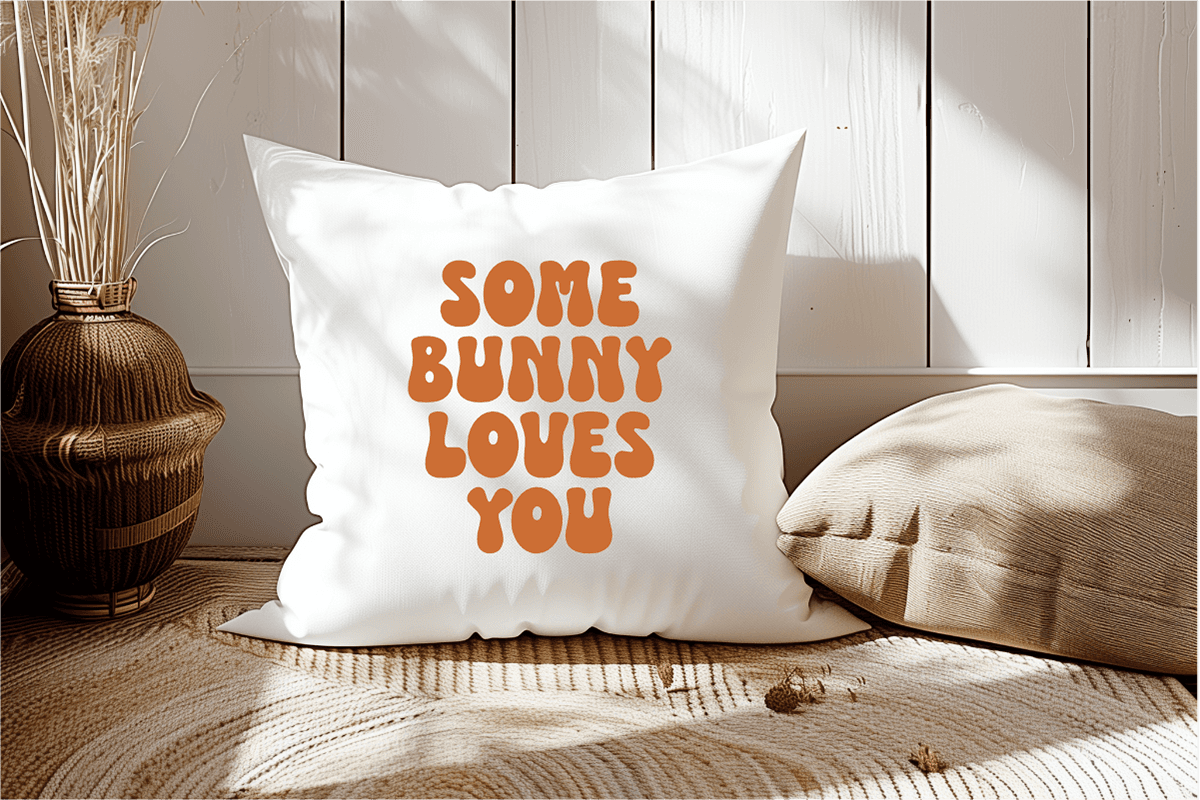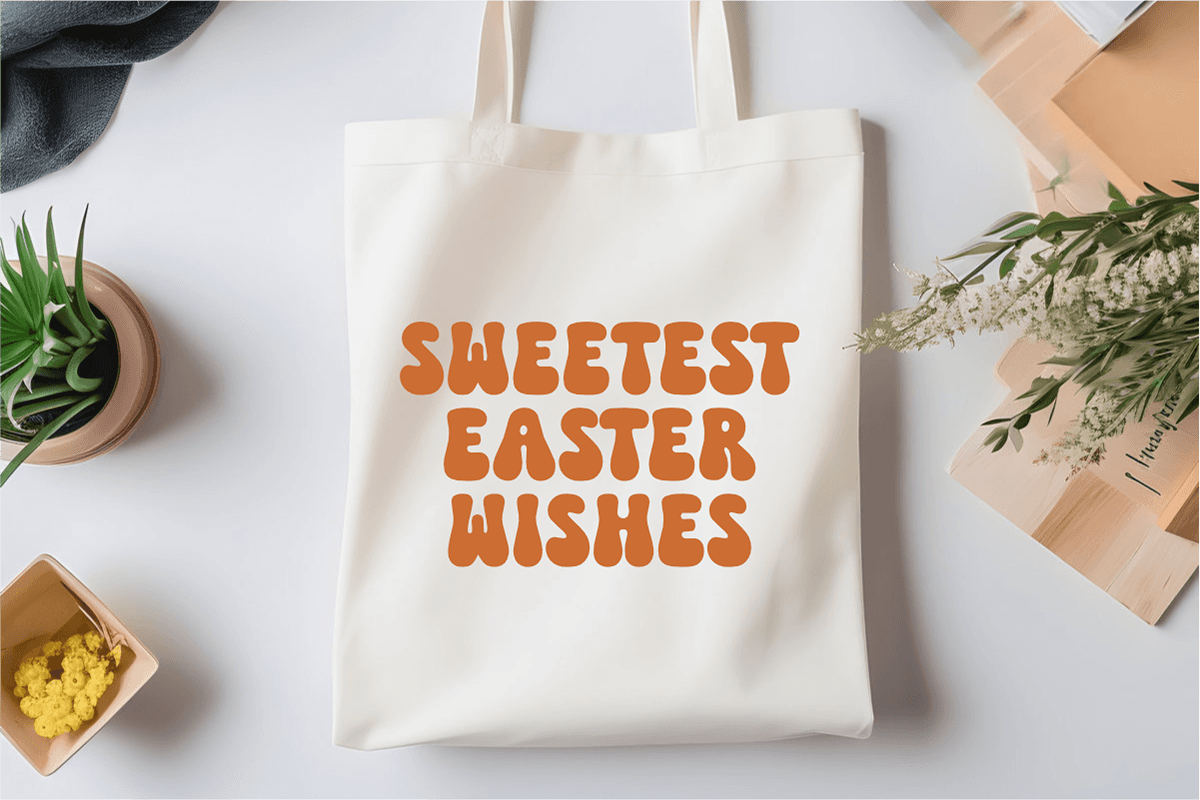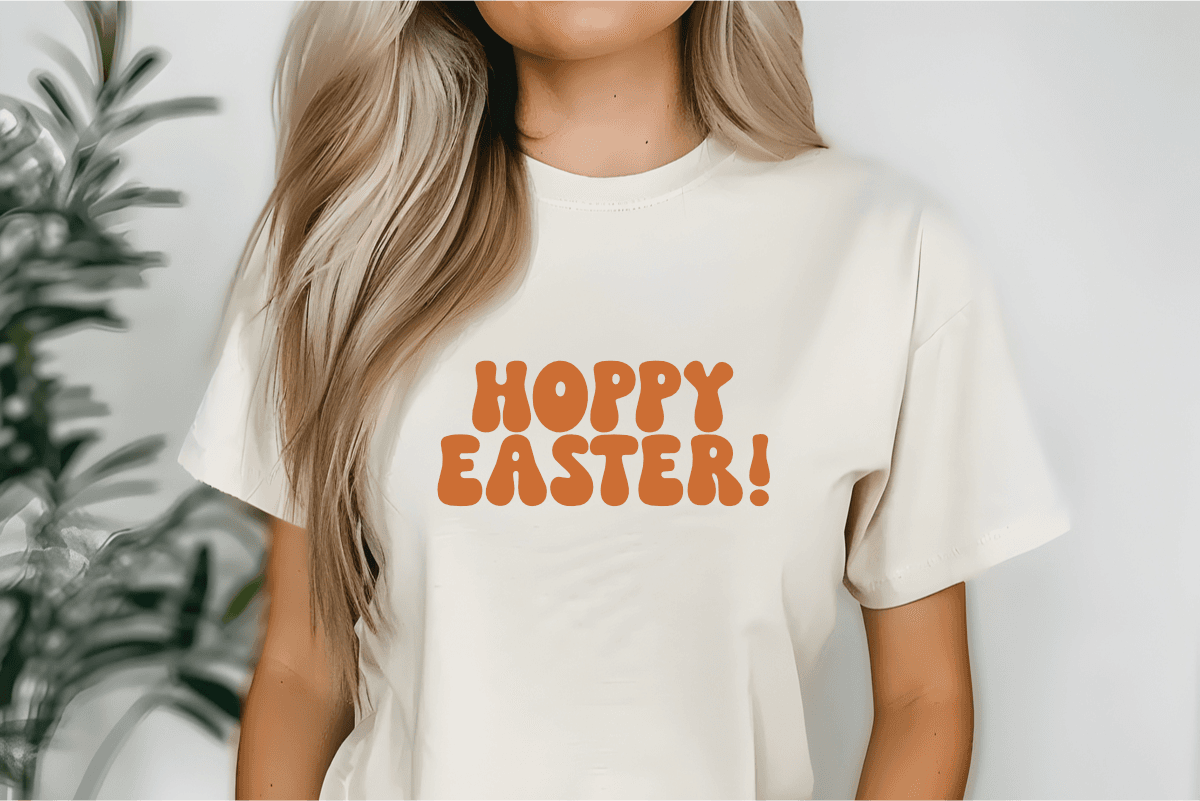
Cute Easter – Display Font is a playful and bubbly groovy font with a charming and soft aesthetic. This font features bold, rounded letterforms with a fun, puffy style that exudes warmth and joy. Perfect for Easter-themed designs, children’s books, branding, posters, greeting cards, and DIY craft projects, Cute Easter brings a cheerful and friendly vibe to any design. Its smooth curves and lively personality make it ideal for designers looking for a cute and eye-catching display font.